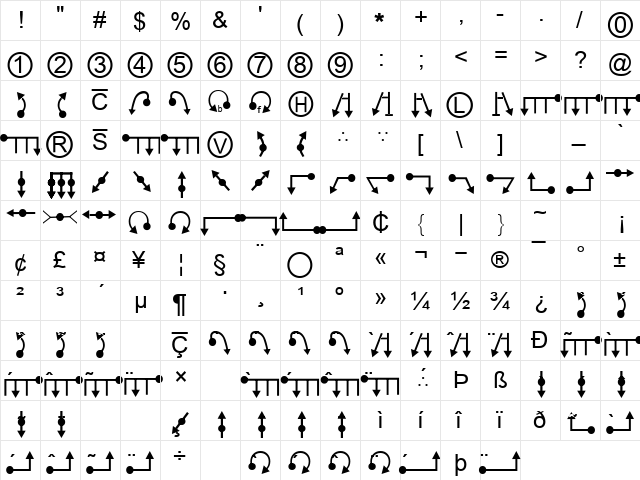
Fysio Regular
Design Context for Fysio Typeface
Fysio offers clean, dependable letterforms without strong stylistic allegiance, making it a practical choice for designers who need flexibility.